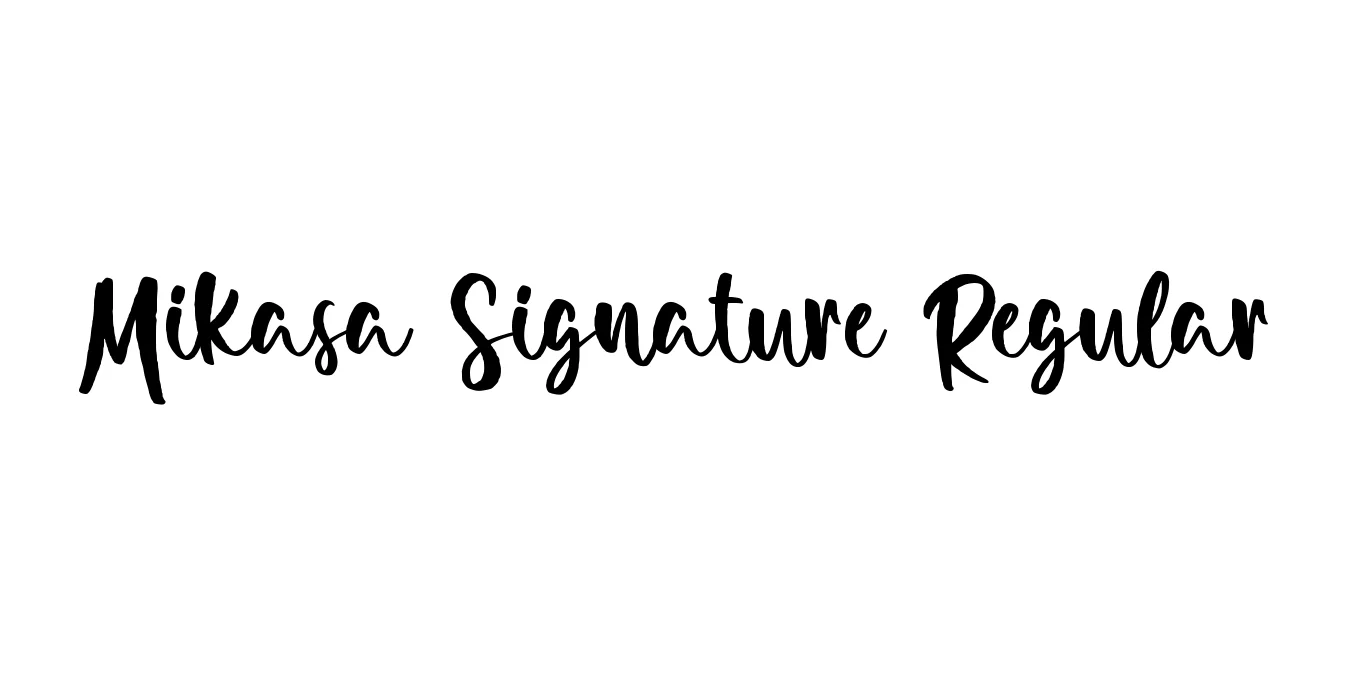
Mikasa Signature Regular
Mikasa Signature Regular is a sophisticated and elegant script typeface designed to mimic the fluid, natural motion of authentic handwriting. It features delicate strokes and a series of unique ligatures that provide a high-end, bespoke feel to any design project. This font is particularly effective for those seeking a balance between modern minimalism and classic calligraphy, making it a staple for luxury branding and personal identities.
Originally released to cater to the growing demand for realistic signature styles, Mikasa Signature has become a favorite among graphic designers for its versatility. Whether used for digital watermarking or printed stationery, the font maintains its legibility while providing an artistic flair that elevates the overall aesthetic. Its clean lines ensure it remains crisp even at smaller scales, while its sweeping curves dominate in headline displays.
Mikasa Signature Regular Best Uses
Perfect for creating logos, business cards, and brand identities with a personal touch.
Ideal for elegant invitations, RSVP cards, and place settings.
Excellent for professional watermarks and stylish photo overlays.
Great for creating high-impact Instagram quotes and lifestyle graphics.